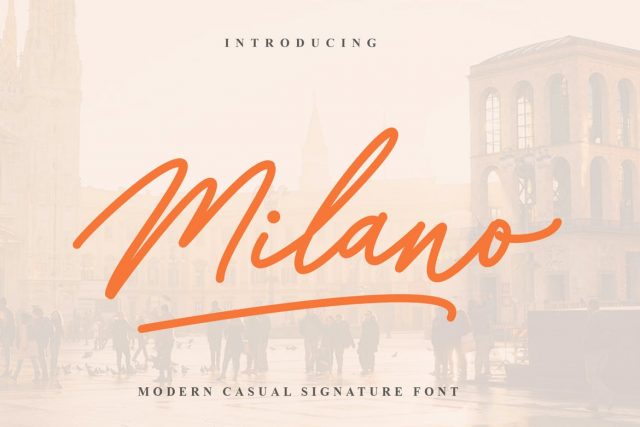
Introducing to Milano Signature Font
Milano is signature font script, ideal for use in projects that need an organic and natural style. This font is great for logo, logotype, branding,wedding, fashion, label, book cover, t-shirt, instagram post, and other, and can add an elegant and classy look to your work.
Basic Latin A-Z and a-z, Numbers, & Symbols
Ligatures